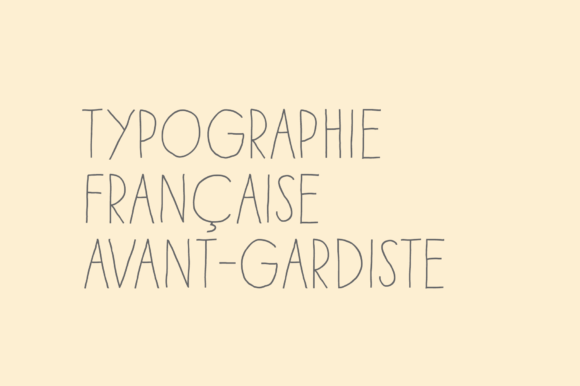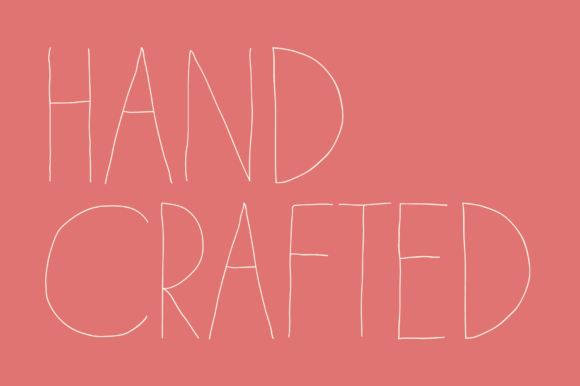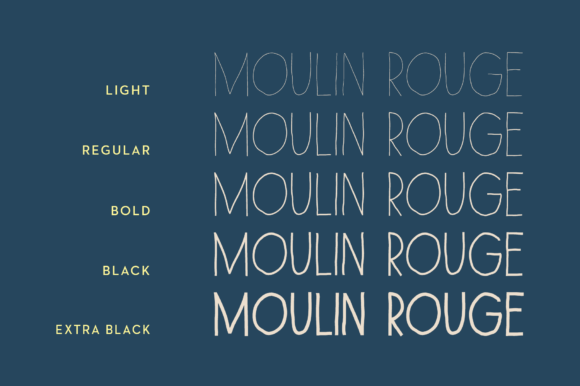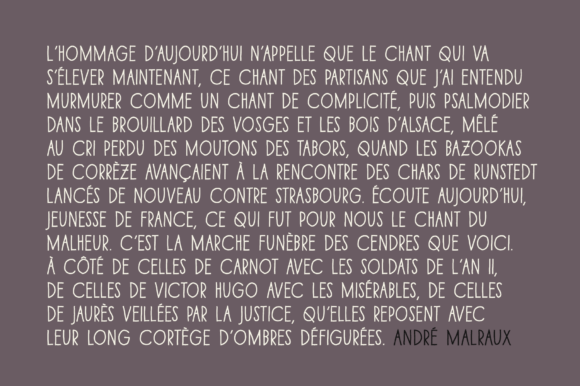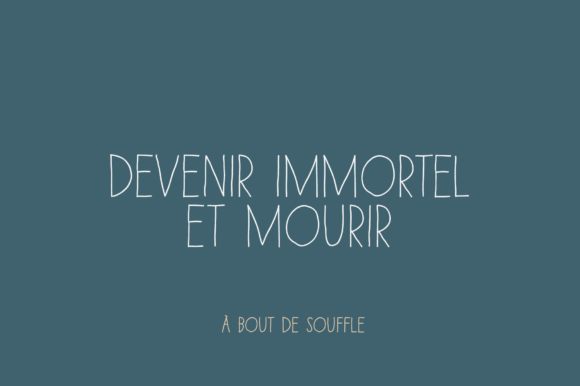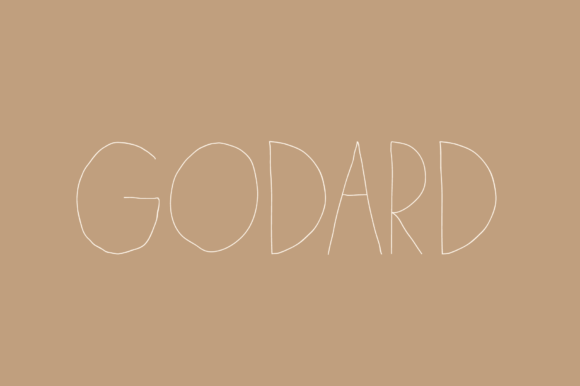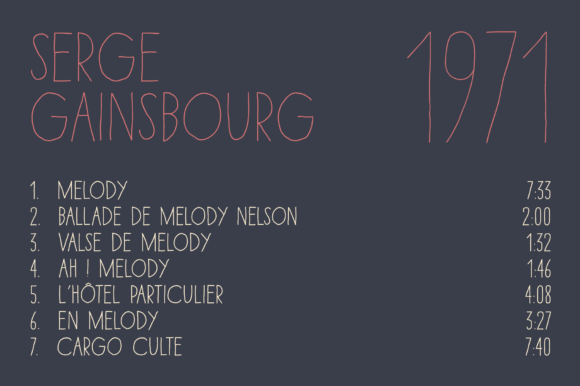
Paris Font: Avant-Garde Handwriting with Art Deco Flair
Paris is a unique handwritten font inspired by the city of Paris. It features an all-caps, slender design with extended glyphs for many languages. What sets it apart is its distinctive Art Deco influence, giving it a retro look.
Key Features of Paris Font
- All-Caps Design: Creates a modern and bold presence.
- Multilingual Support: Extended glyphs for various languages.
- Art Deco Influence: Adds a unique retro charm.
Paris font’s bold style is ideal for creating impactful logo designs and branding materials that stand out.
Signage and Headlines
Use Paris to design eye-catching signage and headlines that command attention.
Retro-Inspired Designs
The font’s Art Deco feel makes it perfect for projects needing a vintage or retro look.
Why Choose Paris Font?
Paris offers more than just stylish letters. Here’s why it stands out:
- Bridges past and present with its avant-garde design
- Suitable for both modern and nostalgic projects
- Versatile enough for various creative uses
By using Paris, you open up new design possibilities. Its unique style works well in many contexts, from branding projects to poster designs.
If you want a font that’s both modern and retro-inspired, Paris is an excellent choice. It’s perfect for adding a sophisticated touch to your work, especially for projects that need a bold, avant-garde feel.
Explore how Paris can transform your designs. From website headers to print materials, this font brings a unique blend of contemporary and classic style to your creations.